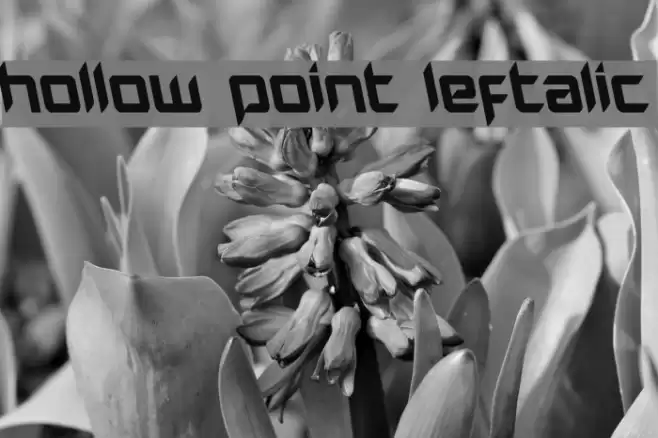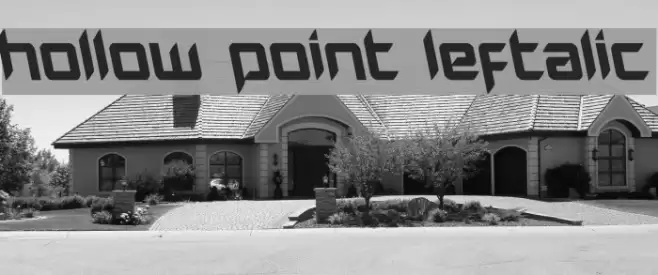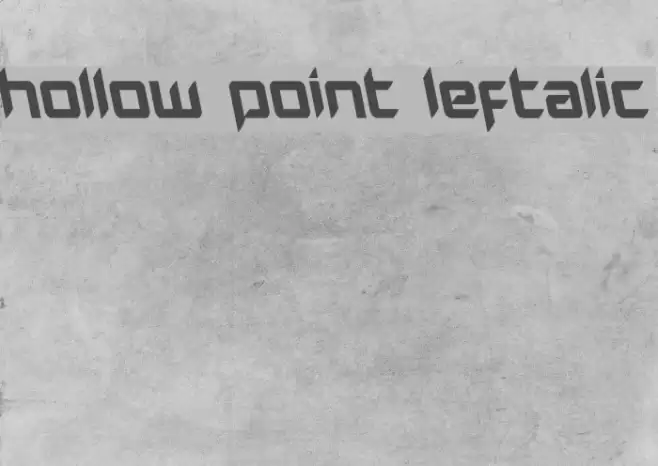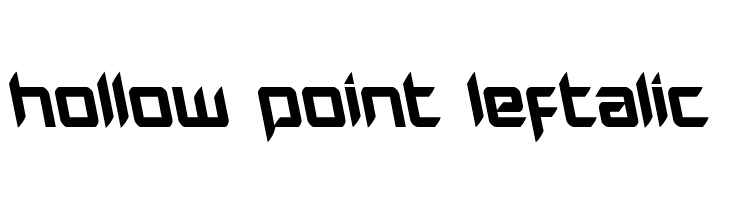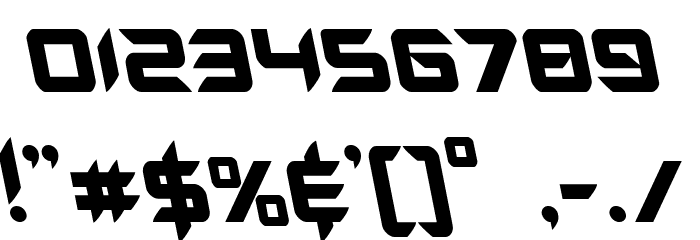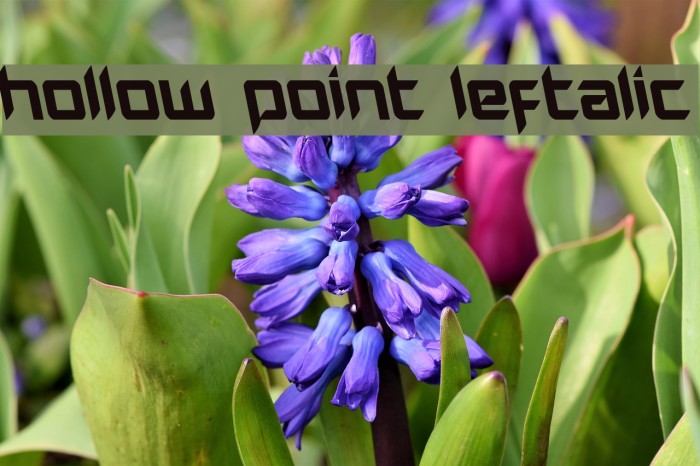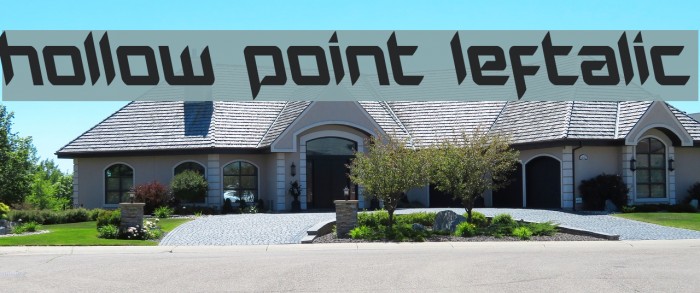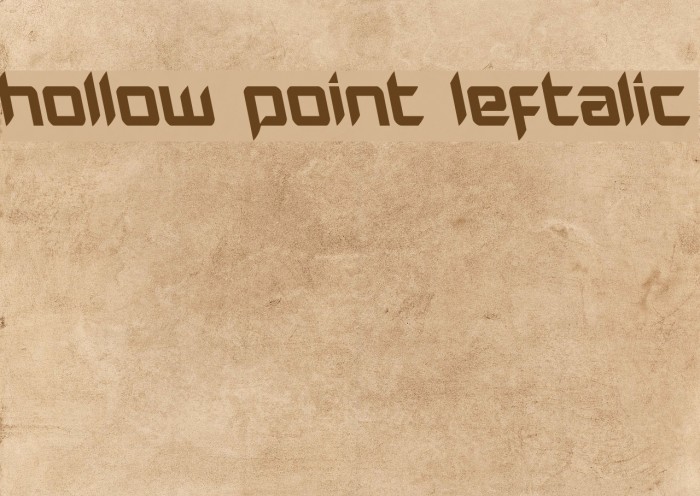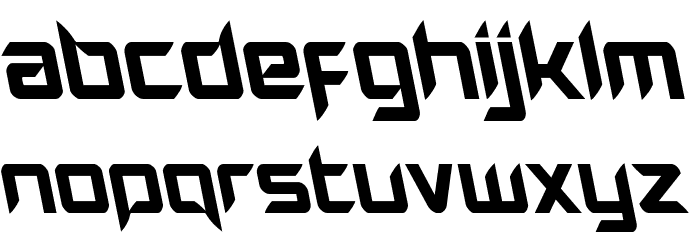
Hollow Point Leftalic Font
Hollow Point Leftalic Description
This font features a bold and angular design with a futuristic and edgy appearance. The characters are sharply defined with a distinct geometric style, creating a sense of movement and dynamism. The italicized slant adds to its modern aesthetic, making it suitable for attention-grabbing headlines or branding. The uppercase and lowercase letters maintain a consistent style, with the numbers and special characters following the same angular theme. The overall design is cohesive, with each character contributing to the font's unique personality.
A bold, angular, and futuristic font with an italicized slant from Uncategorized fonts.
- Proposed Projects: Ideal for sci-fi themed projects, tech branding, video game titles, and modern posters.